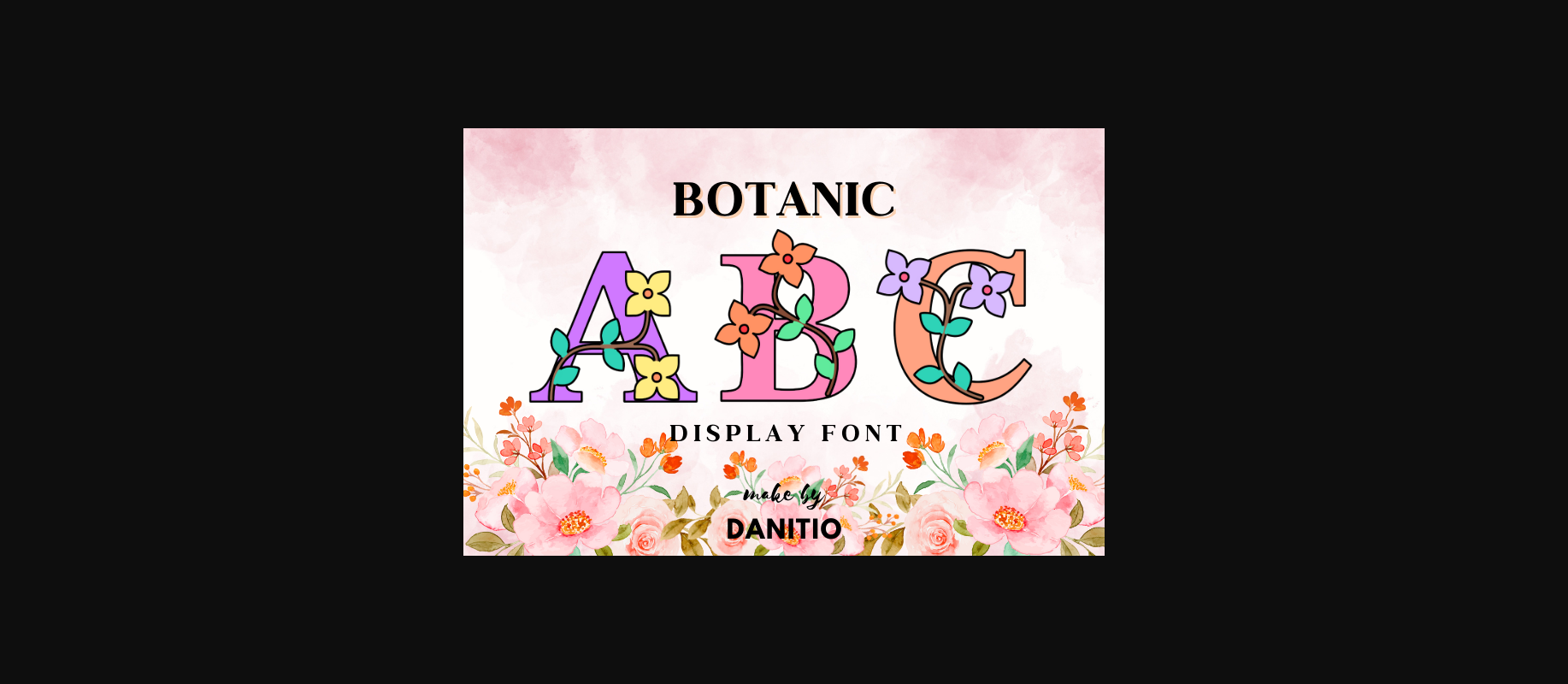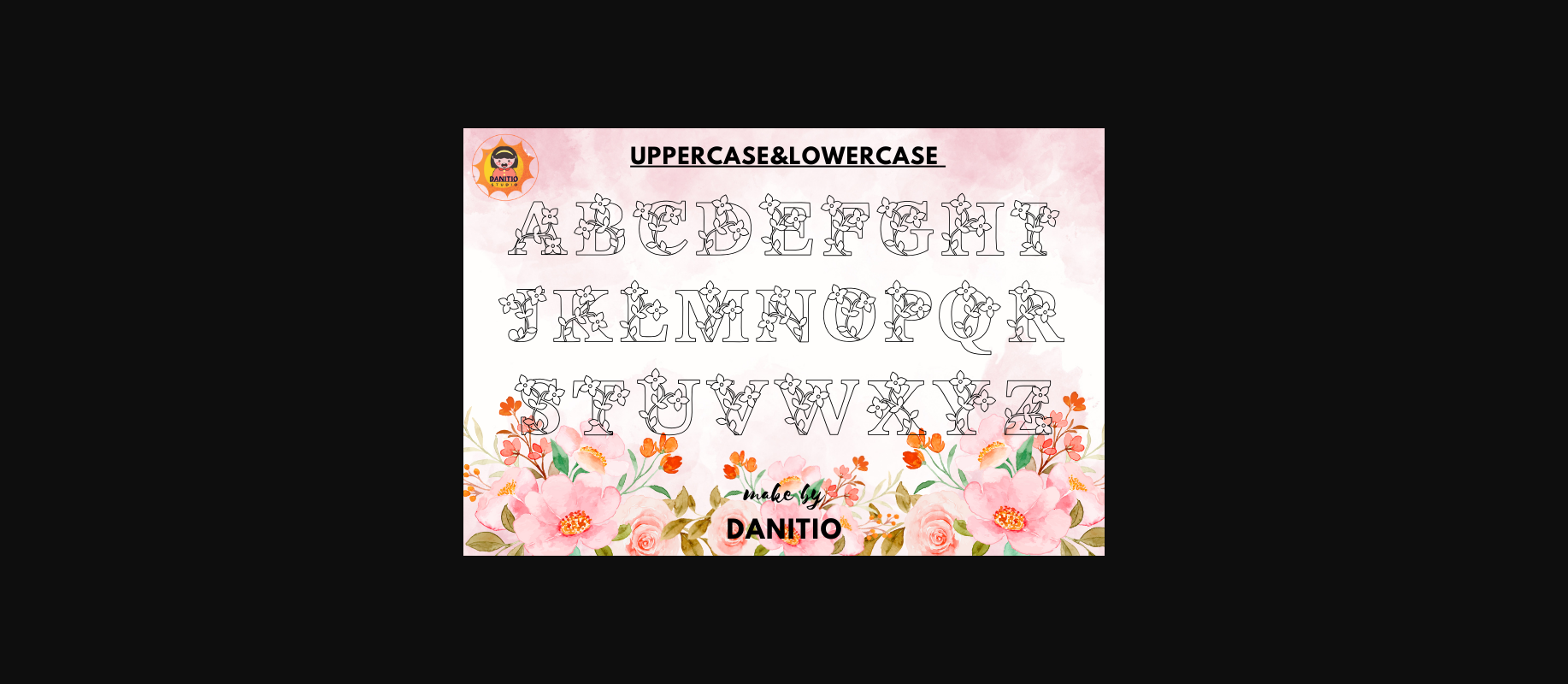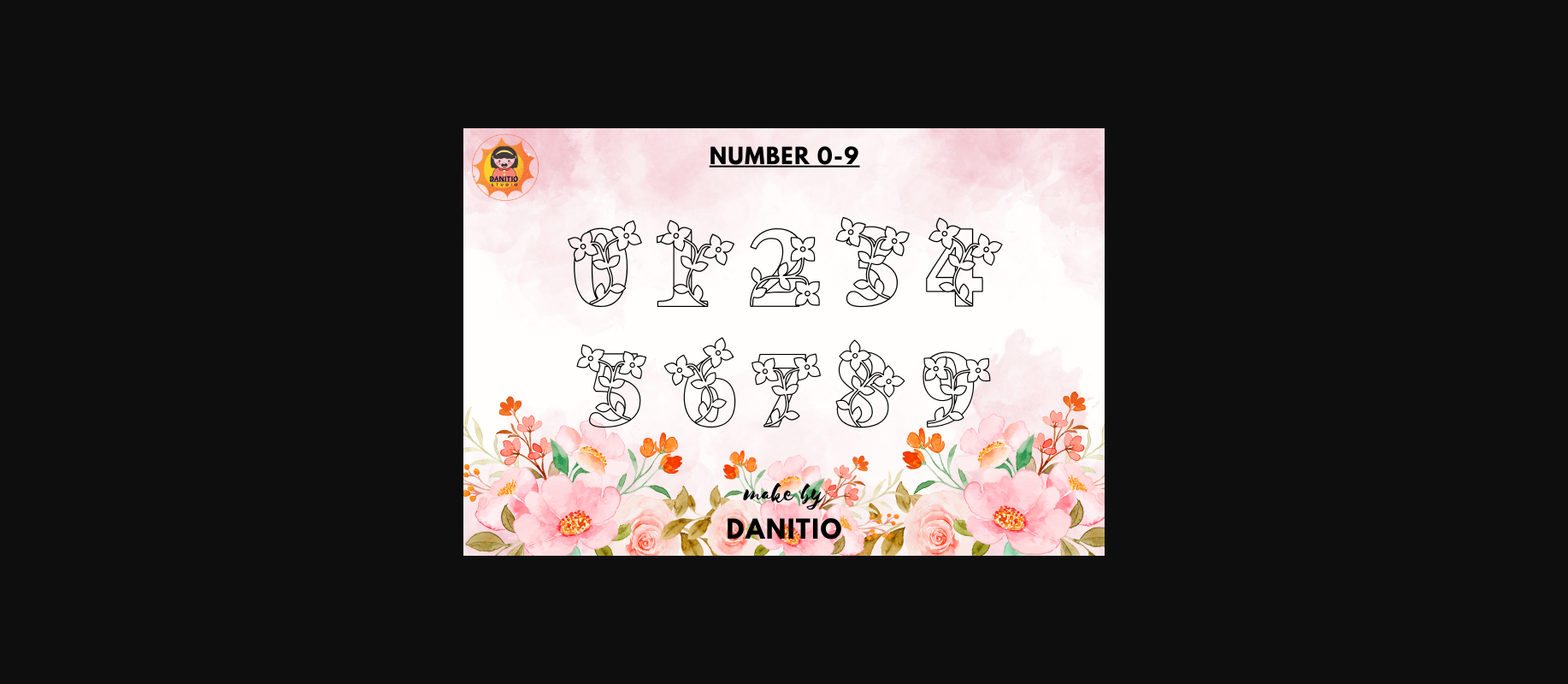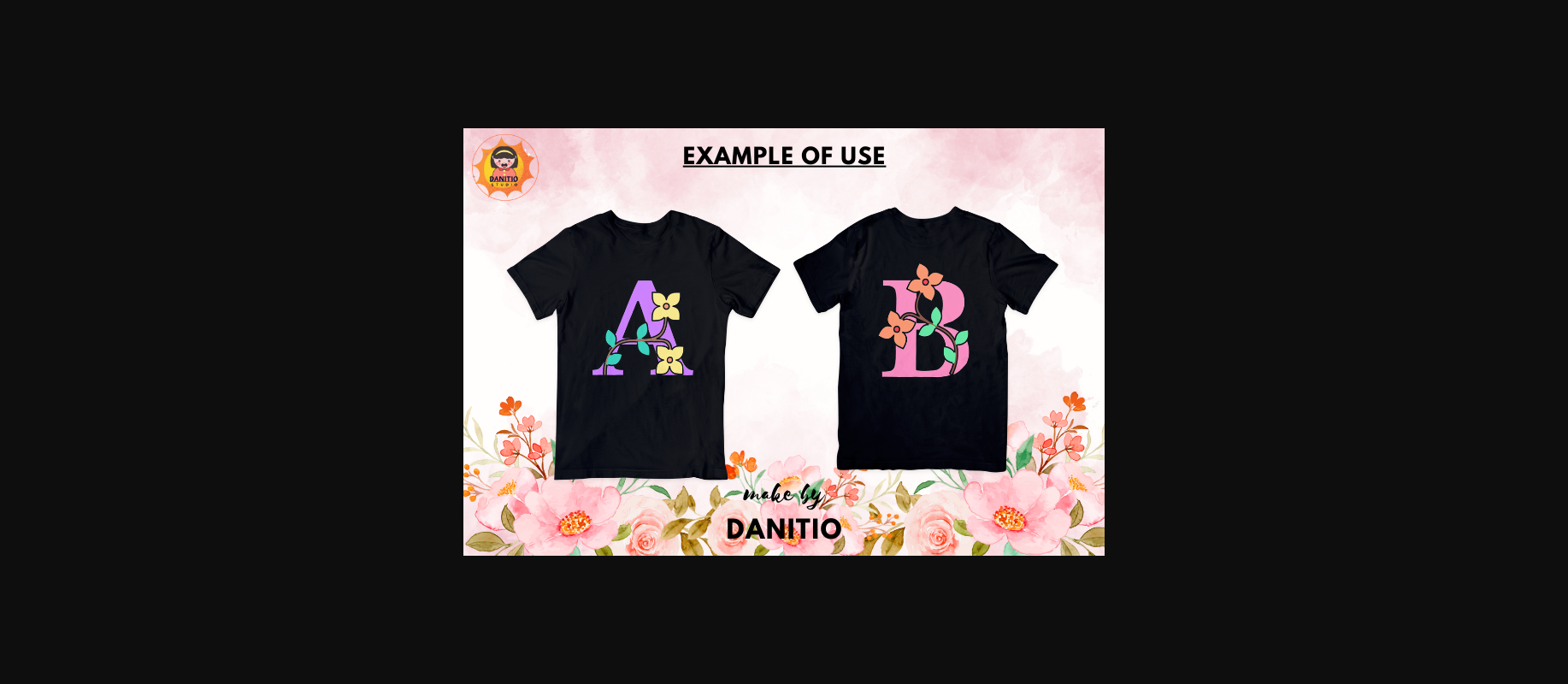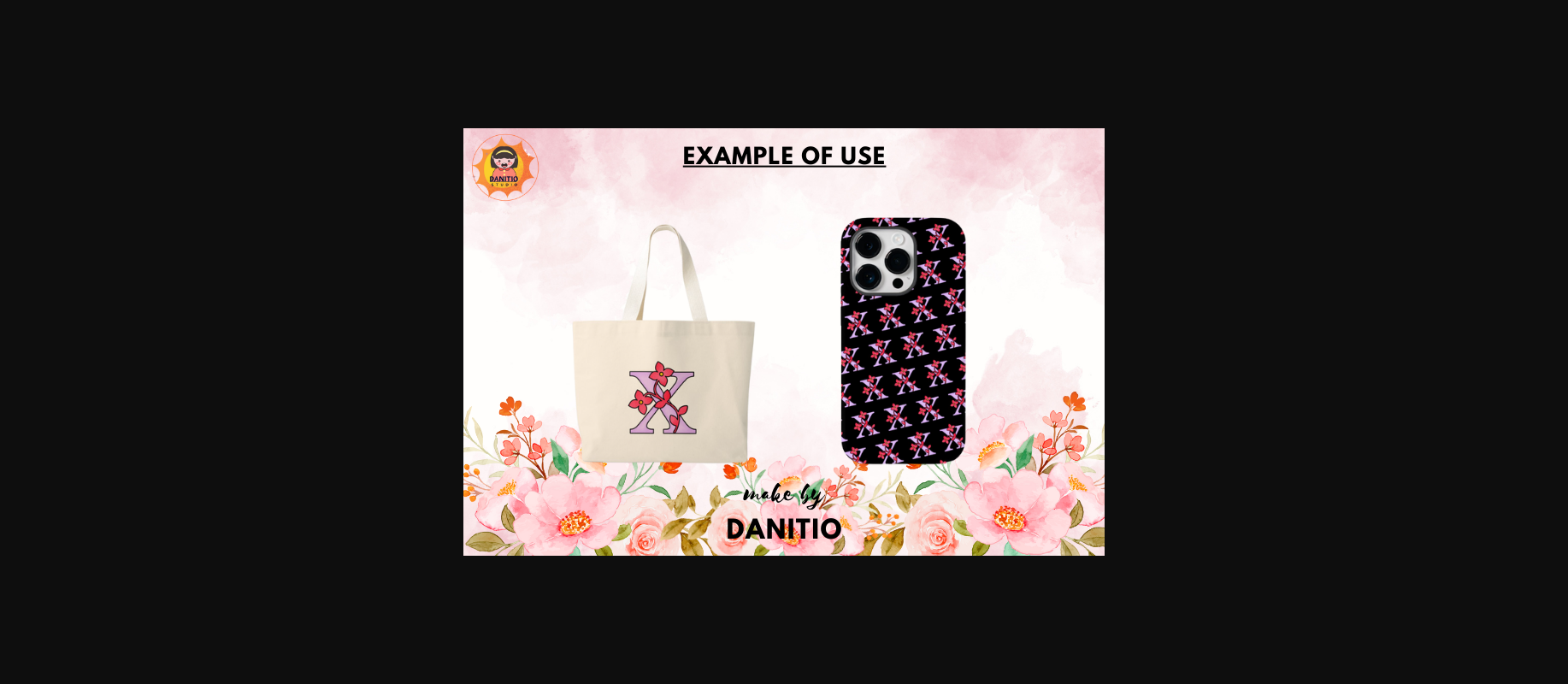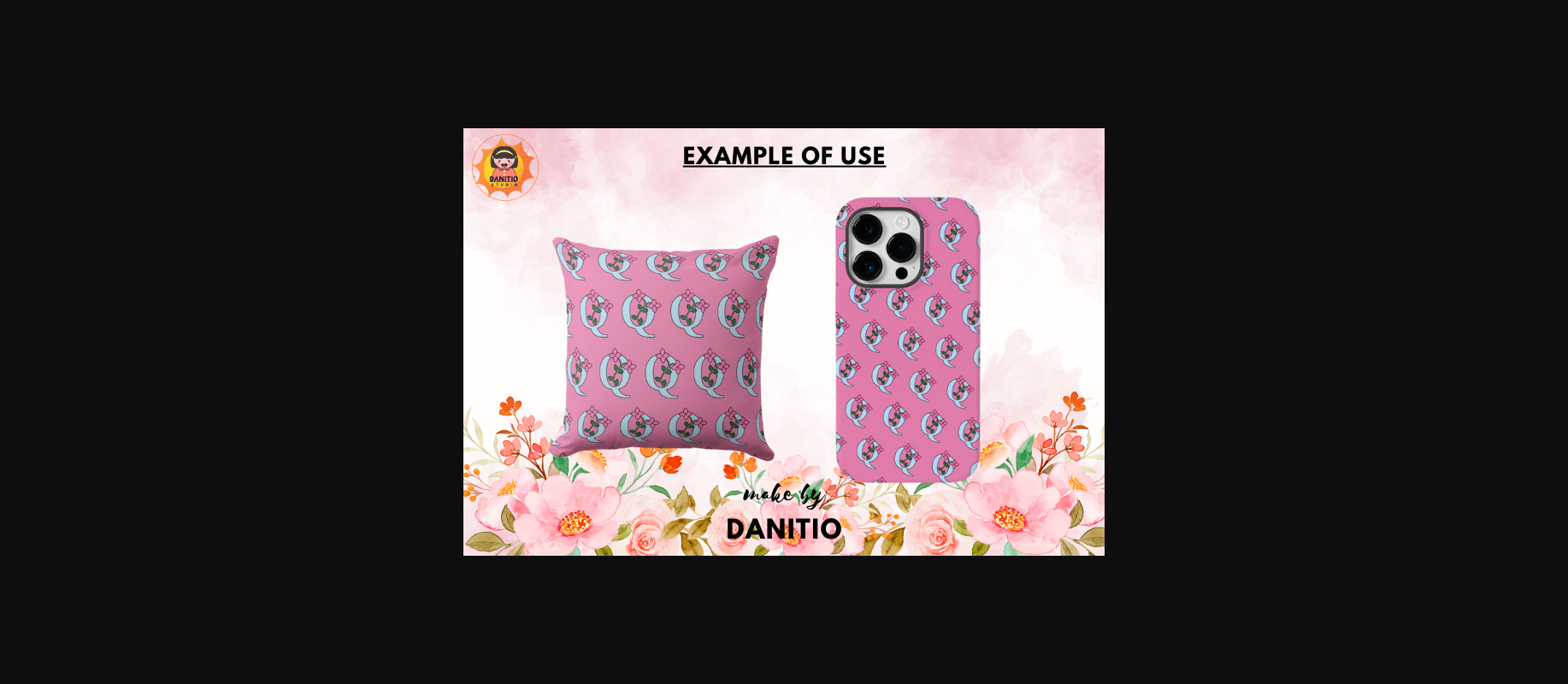
Botanic Font
About Botanic Font
Botanic is a fun display font. Perfect for your favorite projects like posters, flyers, and social media. Movie and book titles, invitations, t-shirt stickers, logos, advertisements, clothing, and many other things or products you think are appropriate.